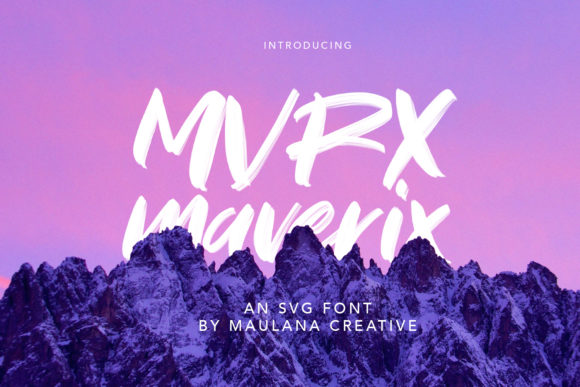
Introducing Maverix Font - The Ultimate Fashion Statement for Your Brand!
In a world of endless font options, Maverix Font stands out as a captivating display font that captures the essence of urban street fashion. Its cool, relaxed, and effortlessly stylish vibes make it the perfect choice for designers seeking to make a bold statement.
With its smooth curves and sharp edges, Maverix Font exudes an air of confidence and sophistication that resonates with modern fashion brands. Its carefully crafted characters are designed to grab attention and leave a lasting impression, making it an ideal choice for logos, branding, and marketing materials.
Whether you're creating eye-catching posters, designing trendy clothing labels, or building a captivating website, Maverix Font is your secret weapon to stand out from the crowd. Its versatility knows no bounds, allowing you to effortlessly elevate any design project with a touch of urban flair.
Unlock your creativity and let Maverix Font be your guide as you craft designs that speak to the hearts of fashion-forward individuals. From children's games to inspiring quotes, book covers to posters, and everything in between, Maverix Font adds a touch of beauty and personality that transforms your creations into masterpieces.
Don't settle for ordinary fonts that blend into the background. Embrace the uniqueness of Maverix Font and unleash your inner fashionista. Experience the power of a font that speaks louder than words and leaves an unforgettable impact on your audience.